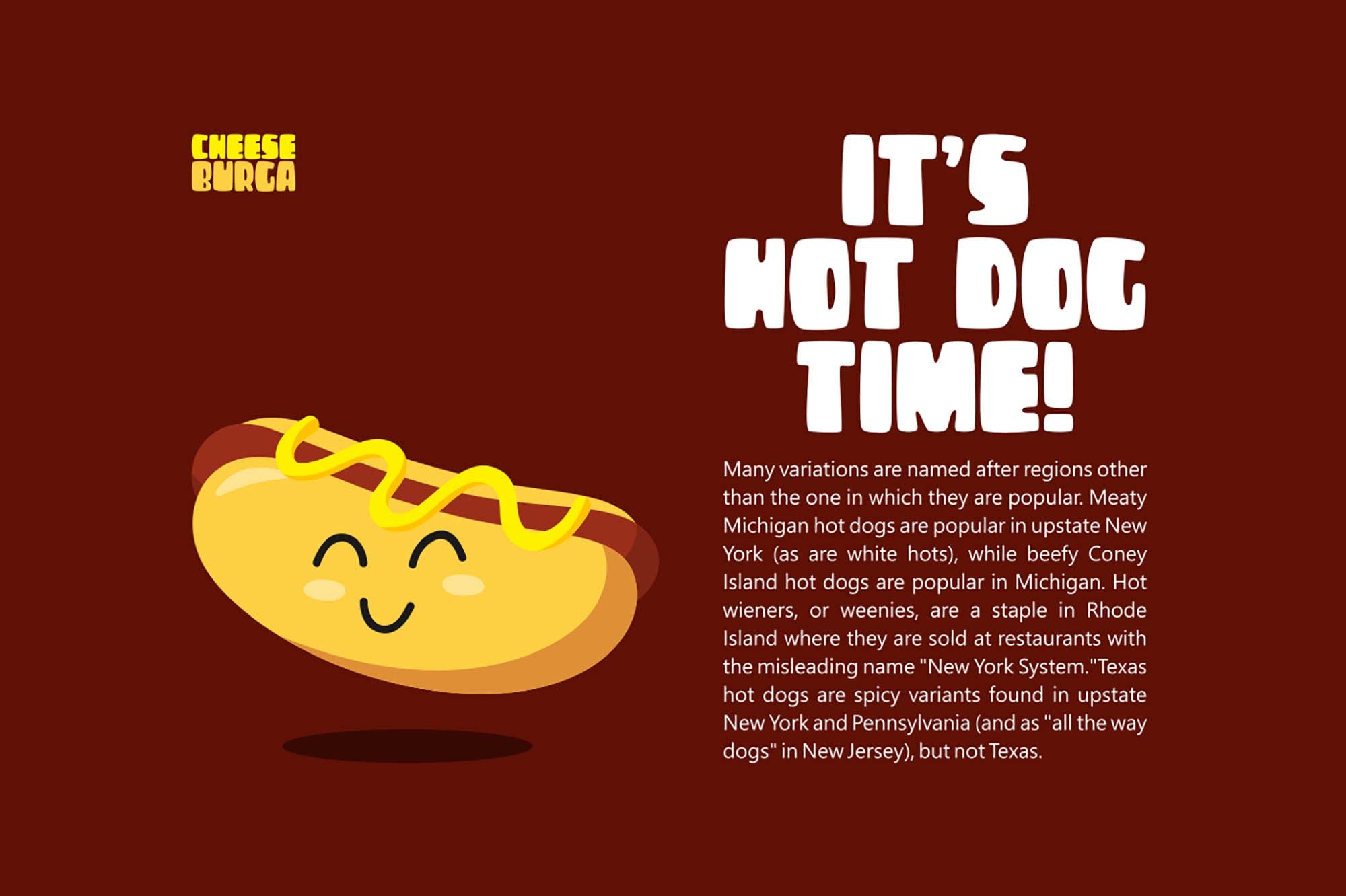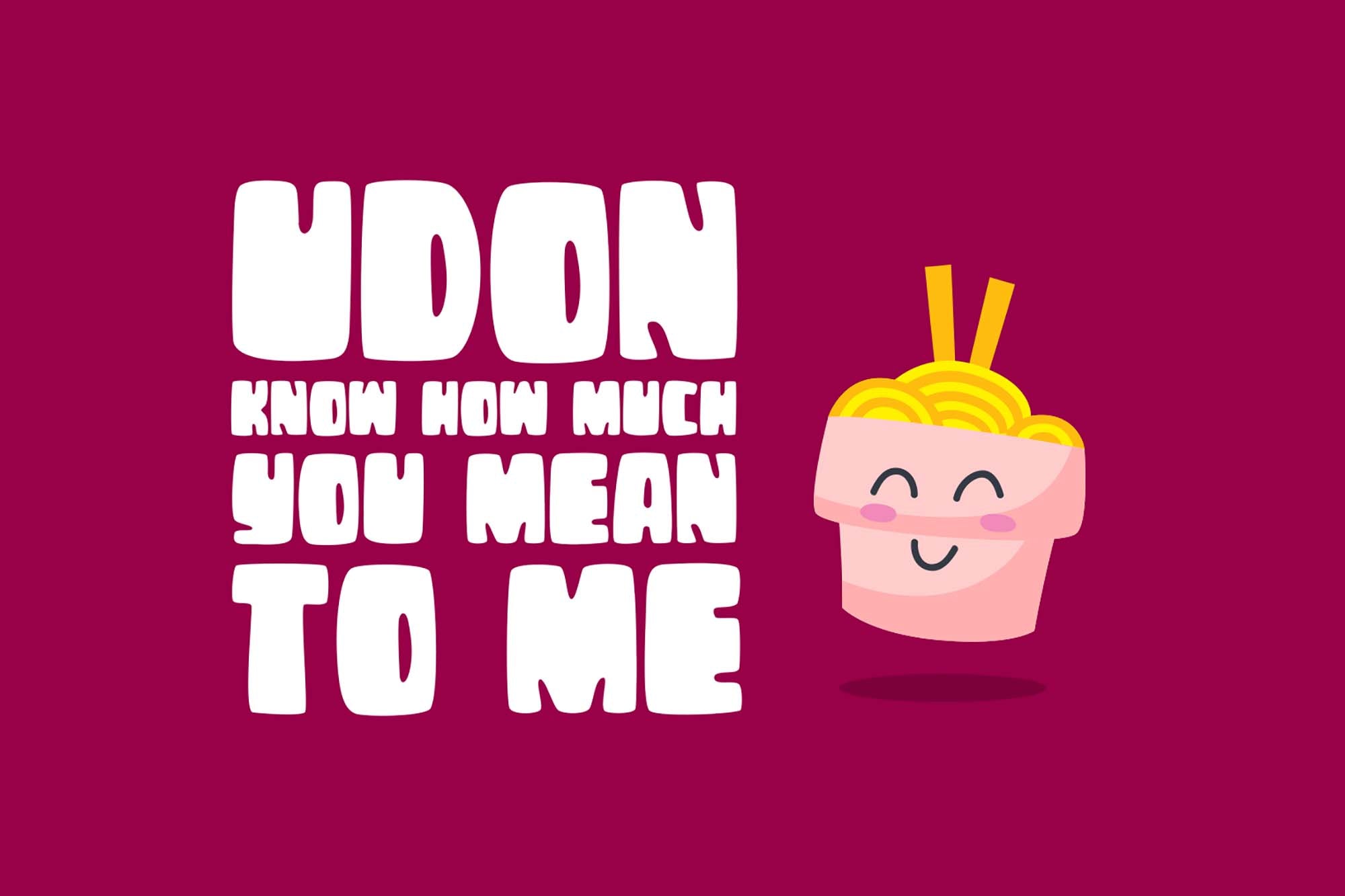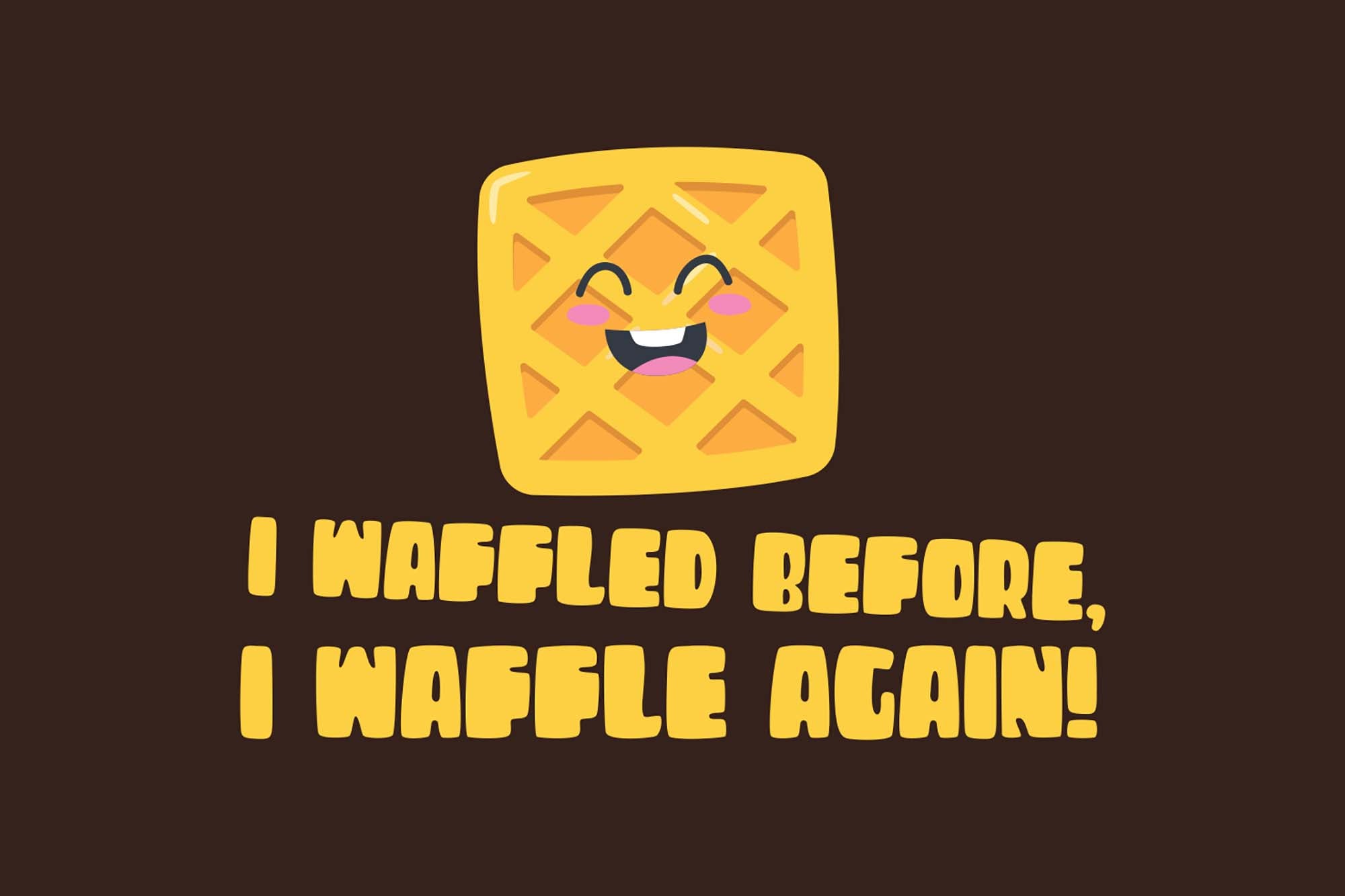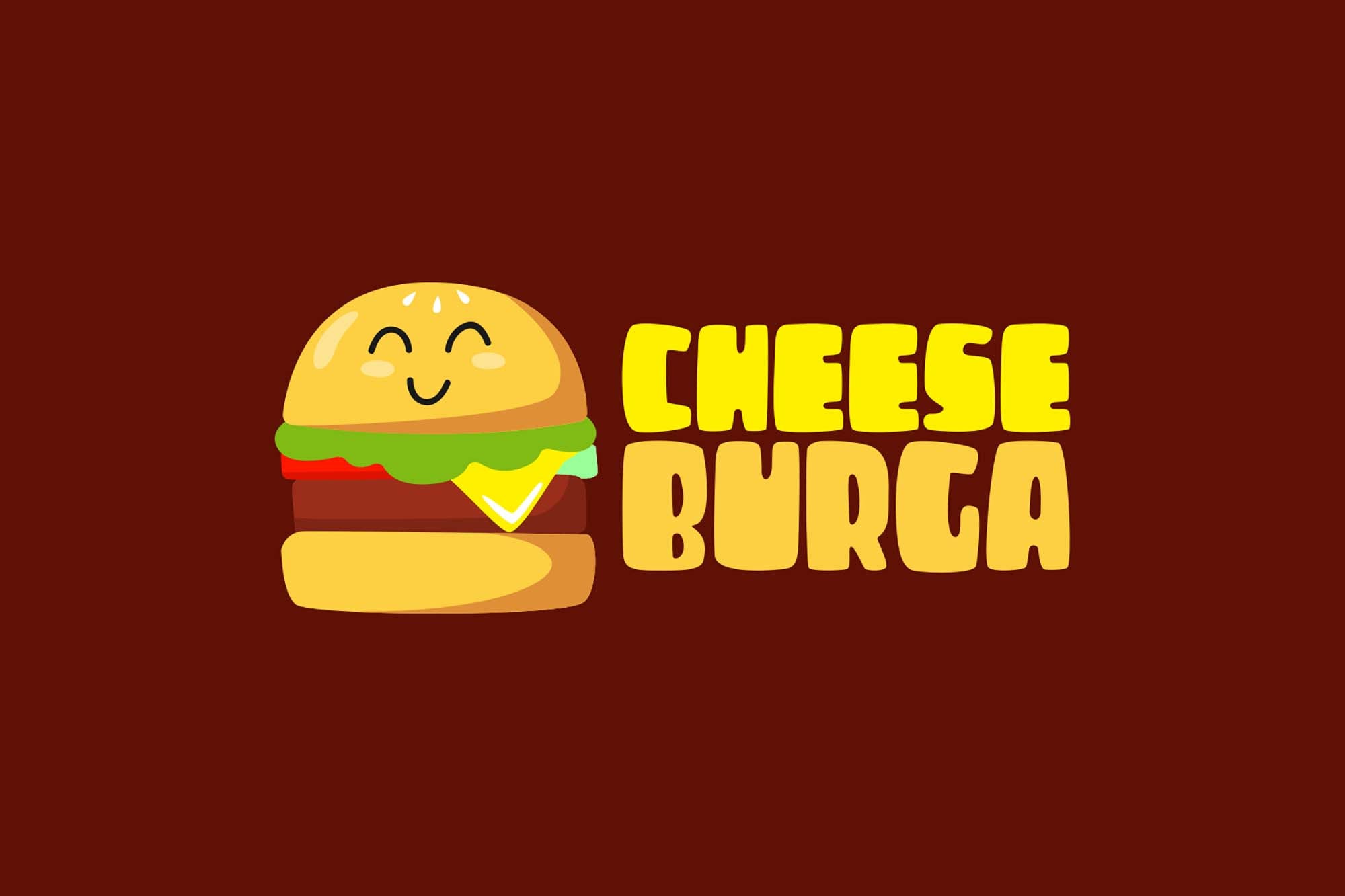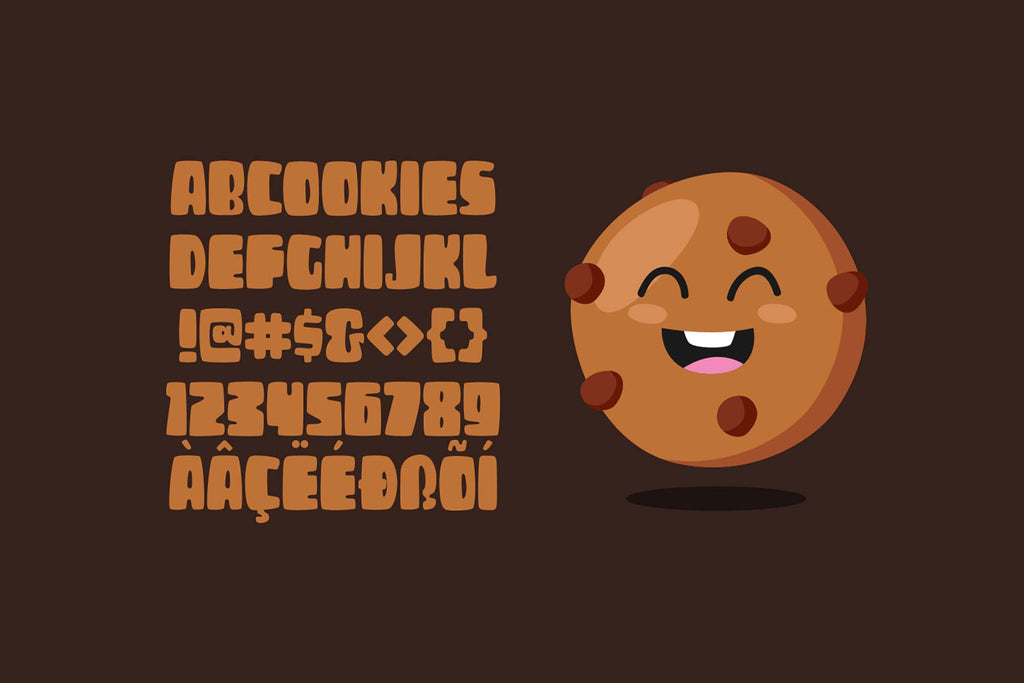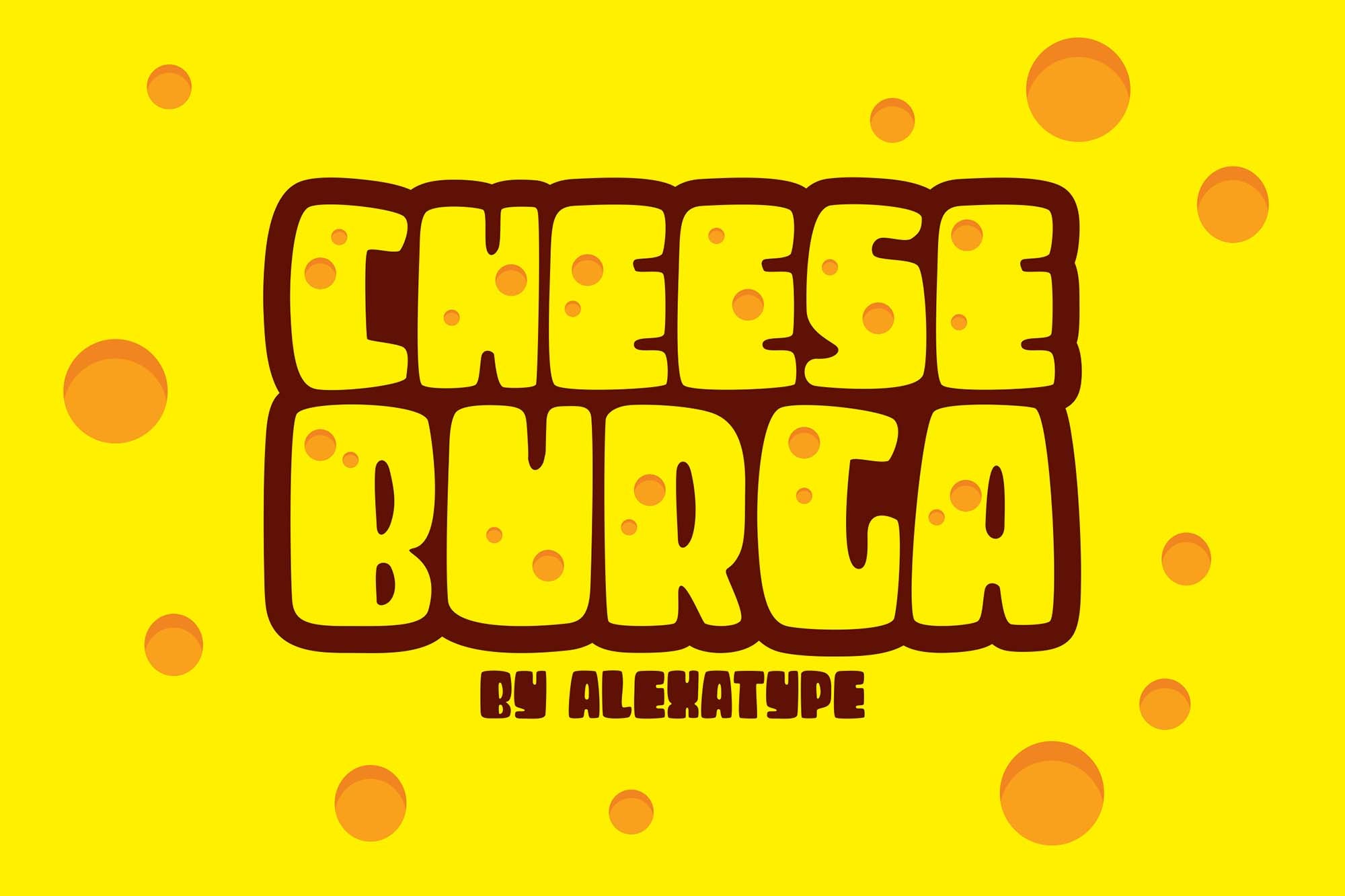
CheeseBurga Chubby Cute Font
Who lives in a pineapple under the sea? It might take you a moment but this is a question we all know the answer to, and why? Because its character was so iconic both in personality and in display that it became part of people’s childhood for generations. So to help you create a look that’s just as memorable as SpongeBob’s, we’d like to share this multi-lingual slant chubby font.
Get ready for CheeseBurga, a display comic font like no other that introduces an all-caps selection, free and available for personal use. Personalize your coffee shop signs and windows with cute logotypes and create extraordinary designs or use it for games and decorative designs for posters and greeting cards. The font created by Alexatype Foundry in TTF format is also ideal for kids who will enjoy it on kids’ menus, books and magazines, and packaging projects.